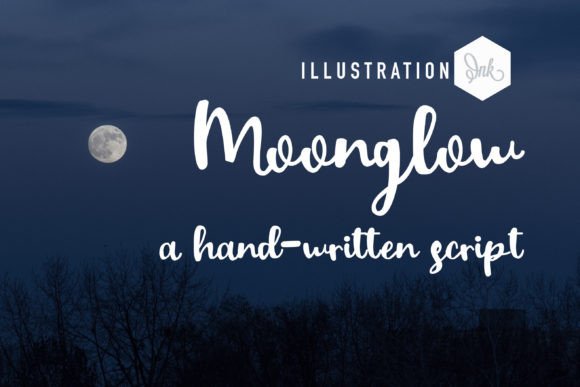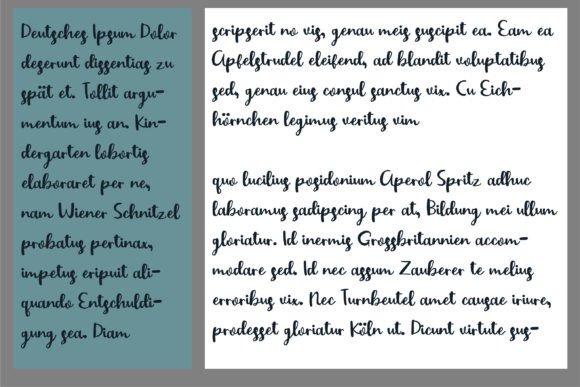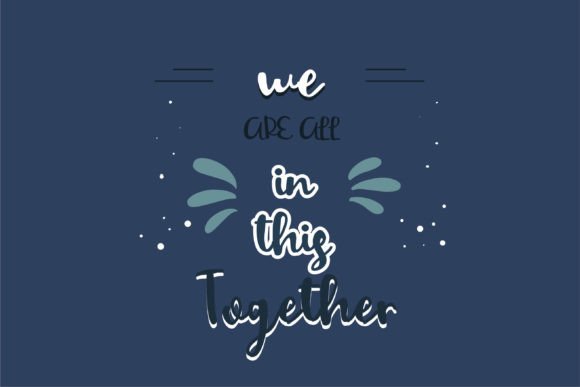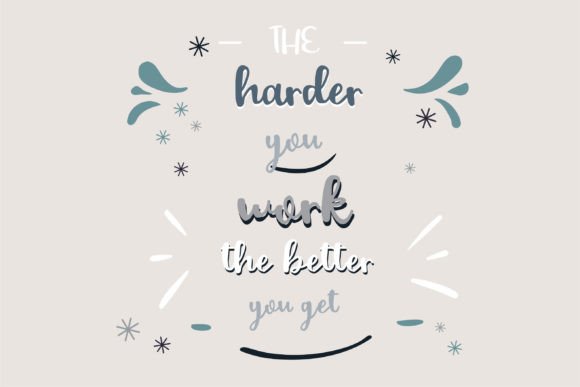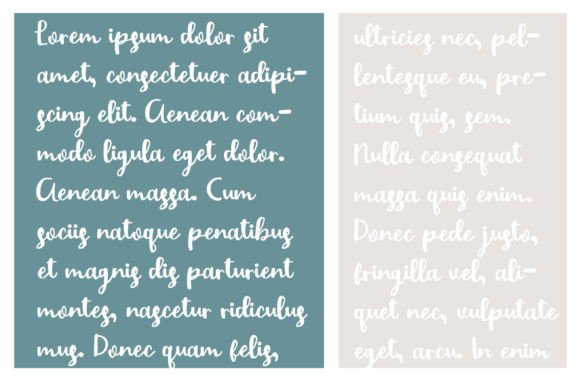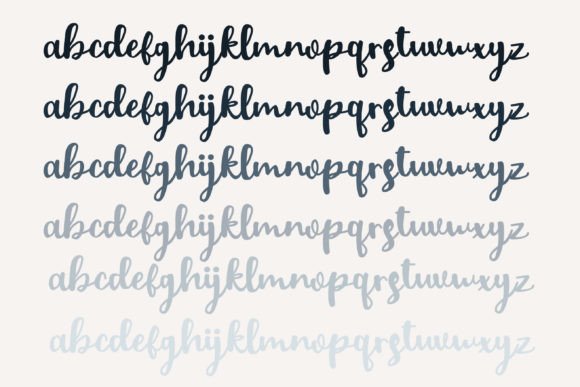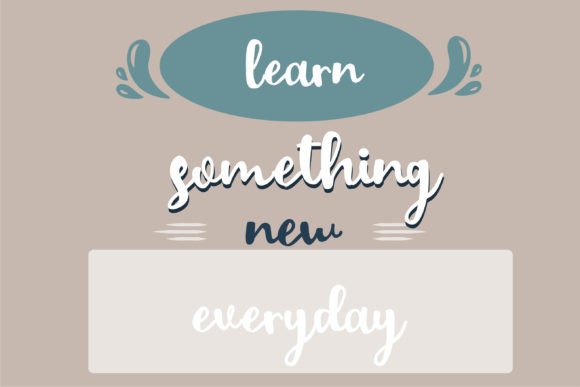
Moonglow Font
About Moonglow Font
Introducing this delightful hand-written script, characterized by a slightly bulky yet playful and crafty look and feel. This font brings a unique charm that’s perfect for wedding-related signs, birthday cards, or any project that calls for adorable typography.
The boldness in the script’s design adds a distinct character, making it stand out with a playful and crafty vibe. The carefully crafted letters contribute to the font’s overall appeal, striking a balance between a whimsical feel and a substantial, eye-catching presence.
Consider using this script on wedding-related signs to infuse a touch of personality and warmth. Its playful nature can add a sense of joy and celebration to such occasions. For birthday cards, the font’s crafty look brings a handmade, heartfelt quality, making your wishes even more special.
This hand-written script is a versatile choice for any project that requires a unique and adorable typography. Its charm extends to a variety of contexts, allowing you to experiment with it on invitations, signage, or any creative endeavor where a fun and crafty aesthetic is desired.
Picture this script on a wedding invitation, where its playful yet substantial appearance complements the celebratory atmosphere. Or imagine it on a birthday card, where the crafty look adds a personalized touch to your heartfelt messages.
In essence, this hand-written script is more than just a font; it’s a creative tool that adds character and personality to your projects. Its slightly bulky yet fun and crafty aesthetic makes it an ideal choice for creating adorable typography that stands out in a delightful and charming way. So, go ahead and explore the possibilities of infusing this script into your designs, bringing a touch of joy and craftiness to every project.